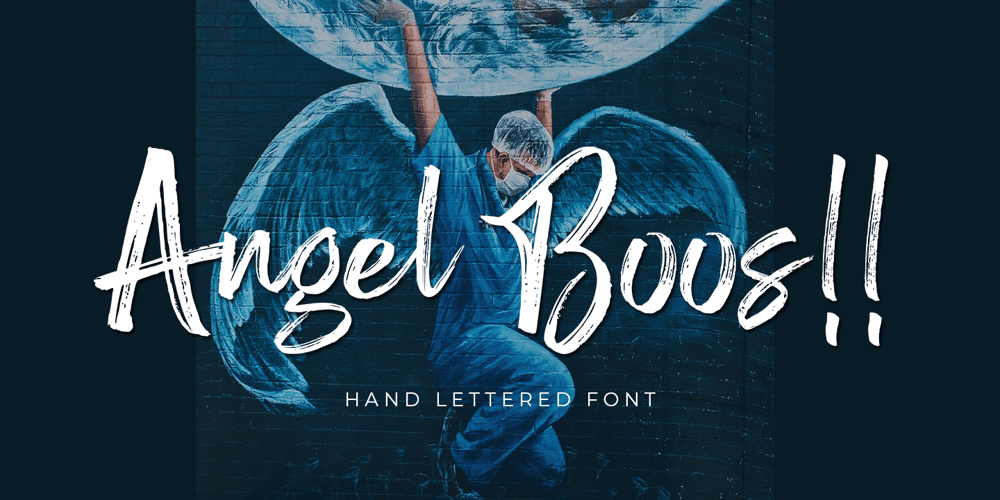
Angel Boos
Angel Boos font
Angel Boos Font Family was designed by Andri Kurniawan and published by Struggle Studio. Angel Boos contains 1 styles and family package options. Angel Boos is a very quirky handwritten font right now, it has 200+ extravagant Glyphs of variety, making this font really cool.Angel Boos Can be used for various purposes. such as logos, product packaging, wedding invitations, branding, headlines, signage, labels, signatures, book covers, posters, quotes, and many more.